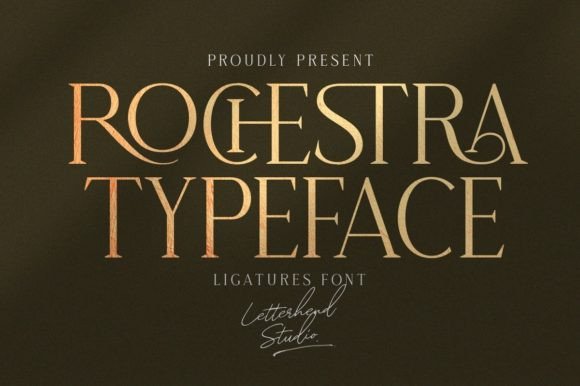
Unleash the Timeless Beauty of Simplicity with Rochestra Font - The Epitome of Sophistication
Immerse yourself in the world of Rochestra Font, a captivating serif font family that exudes timeless elegance and sophistication. Designed by the renowned letterhend, Rochestra is a masterpiece of simplicity, tailored to elevate your creative projects with a touch of understated charm.
With its carefully crafted ligatures, Rochestra adds a touch of uniqueness to your designs, making them stand out from the crowd. Whether you're creating a simple logo, a formal invitation, a magazine layout, or a heartfelt wedding card, Rochestra seamlessly adapts, transforming your words into visually stunning masterpieces.
Rochestra's versatility extends far beyond its traditional applications. Its timeless charm lends itself perfectly to fashion, makeup, and stationery designs, adding a touch of sophistication to your branding and marketing materials. Novels, labels, and advertisements alike come alive with Rochestra's understated elegance, capturing attention and leaving a lasting impression.
Embrace the power of simplicity and let Rochestra Font guide you towards creating timeless designs that resonate with your audience. Its versatility and sophistication make it the perfect choice for designers, artists, and businesses seeking a touch of understated elegance in their creative endeavors.